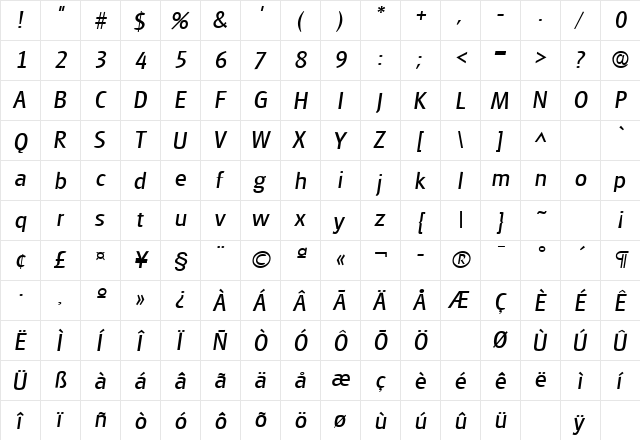
Glasgow Italic Font Preview
Glasgow Italic
Glasgow Italic Font Details
Design Context for Glasgow Typeface
Glasgow offers clean, dependable letterforms without strong stylistic allegiance, making it a practical choice for designers who need flexibility. The dynamic lean of this cut emphasises speed and emphasis in any layout.
Pro Tip: Try Glasgow for annotation and caption copy alongside an upright companion — the contrast in angle creates a dynamic but ordered typographic system.